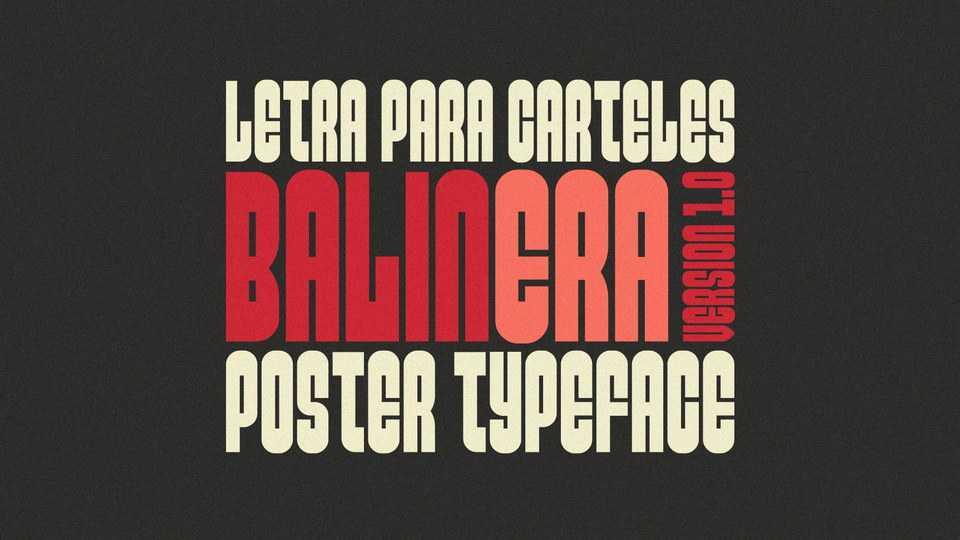
Download Balinera font, a quirky black and condensed typeface perfect for short statements, whether it is an inspirational quote or a strong political motto.